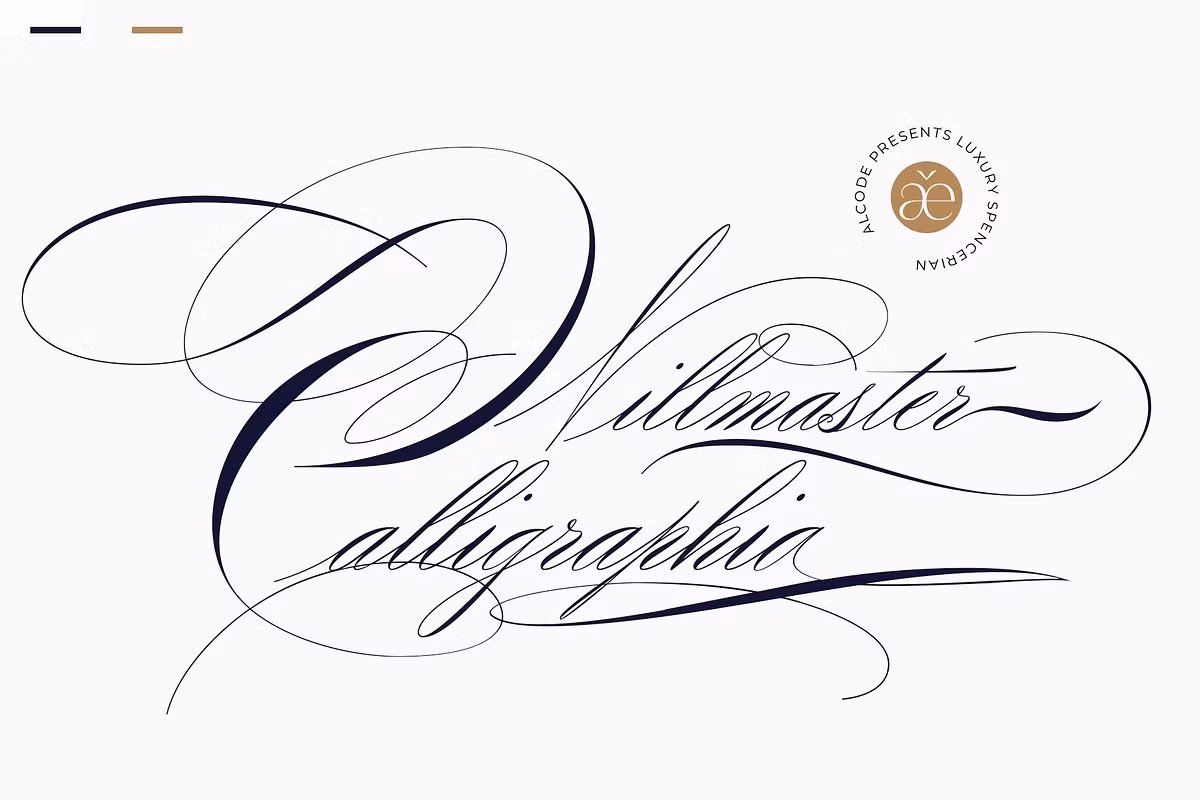
Willmaster Calligraphia Font Free Download is an elegant and sophisticated calligraphy-style typeface that combines flowing strokes with a refined, classic look. Perfect for wedding invitations, luxury branding, social media graphics, event signage, and personalized designs, this font brings a sense of grace and beauty to your typography.
Its carefully crafted letterforms and intricate details make it ideal for projects that need a timeless, handwritten feel. Whether you are designing for formal events or crafting a high-end brand identity, Willmaster Calligraphia adds a polished, artistic touch.